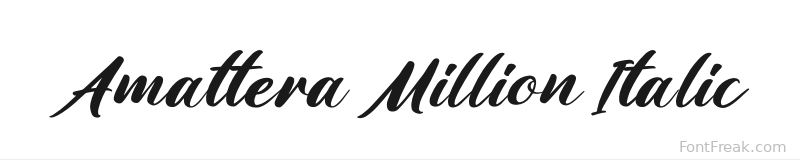
Amattera Million
Amattera Million Italic
About Amattera Million
Amattera Million by Perspectype Studio is a striking script font that captures the essence of elegance and creativity. Released in 2021, this font falls under the category of decorative scripts, offering a unique blend of sophistication and artistic flair. Characterized by its fluid, cursive strokes and varying stroke weights, Amattera Million combines graceful lines with a modern touch, making it visually appealing for various design projects. The font features a high contrast between thick and thin strokes, contributing to its dynamic appearance, while the spacing is thoughtfully designed to maintain readability without sacrificing style.
This font is an excellent choice for a variety of applications. It shines in wedding invitations, where its romantic curves can beautifully convey a personal touch. Additionally, Amattera Million is well-suited for movie posters, as its distinctive style can effectively capture attention and draw viewers in. Restaurant menus can also benefit from this font, adding a touch of sophistication to the dining experience. Content creators looking to enhance their social media graphics will find that this font seamlessly elevates the visual appeal of their posts.
Targeting graphic designers, small business owners, and content creators, Amattera Million provides a versatile option for those seeking to make a statement with their typography. The font’s enchanting style and free license make it accessible for various users, from professionals to hobbyists.
In conclusion, Amattera Million stands out for its captivating design and versatility. It offers a unique aesthetic that can enhance any project, making it an essential addition to your font collection. Don’t miss out on the opportunity to incorporate this beautiful typeface into your designs. Be sure to take advantage of the Amattera Million font free download to explore its possibilities today.